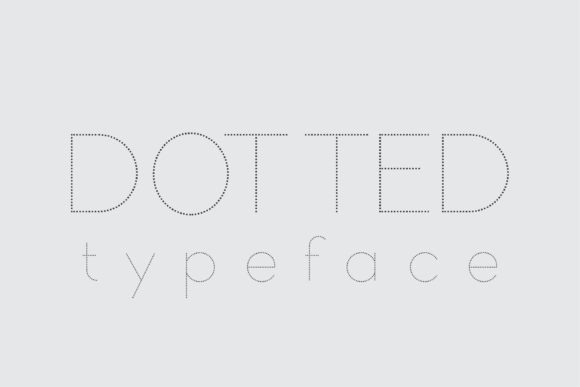
Dotted Font: Elevate Your Designs with a Minimal yet Unique Display Font
In the world of typography, a well-chosen font can make all the difference in the success of a design project. Whether you’re working on a branding campaign, a website, or a marketing material, the right font can elevate your creative ideas and make them stand out from the crowd. This is where Dotted Font comes in – a minimal yet uniquely designed display font that can be matched to an incredibly large set of projects.
What is Dotted Font?
Dotted Font is a modern display font that features a distinctive dotted design. Its unique style is characterized by small dots that form the letters, creating a visually striking and eye-catching effect. The font is designed to be versatile and can be used in a variety of contexts, from headings and titles to logos and branding materials.
Key Features of Dotted Font
- Minimal Design: Dotted Font boasts a clean and minimal design that makes it perfect for modern designs.
- Unique Style: The font’s dotted design sets it apart from other fonts, making it a great choice for designers looking for something distinctive.
- Versatile: Dotted Font can be used in a wide range of projects, from digital designs to print materials.
- Easily Readable: Despite its unique design, Dotted Font is easy to read, making it suitable for use in body text as well as headings.
Creative Ways to Use Dotted Font
Dotted Font is an incredibly versatile font that can be used in a variety of creative ways. Here are some ideas to get you started:
- Branding and Logos: Use Dotted Font to create a unique and memorable logo for your brand.
- Headings and Titles: Add a touch of elegance to your headings and titles with Dotted Font.
- Web Design: Use Dotted Font to create visually striking headings and titles for your website.
- Marketing Materials: Add a professional touch to your marketing materials, such as brochures and flyers, with Dotted Font.
- Social Media Graphics: Use Dotted Font to create eye-catching social media graphics that will help your content stand out.
Tips and Tricks for Using Dotted Font
Here are some tips and tricks to help you get the most out of Dotted Font:
- Experiment with Colors: Dotted Font looks great in a variety of colors, so don’t be afraid to experiment and find the perfect hue for your design.
- Play with Size: Dotted Font can be used at a range of sizes, from small headings to large display text.
- Combine with Other Fonts: Dotted Font pairs well with a variety of other fonts, so try combining it with a sans-serif font for a modern look.
Design Inspiration: How Dotted Font Can Elevate Your Creative Ideas
Dotted Font is a font that can elevate your creative ideas and make them stand out from the crowd. Its unique design and versatility make it perfect for a wide range of design projects. Here are some examples of how Dotted Font can be used to create stunning designs:
- Modern Brochures: Use Dotted Font to create modern and eye-catching brochures that will help your business stand out.
- Elegant Websites: Add a touch of elegance to your website with Dotted Font, perfect for creating a professional online presence.
- Creative Posters: Use Dotted Font to create visually striking posters that will grab attention and communicate your message effectively.
Technical Details of Dotted Font
- Font Type: Dotted Font is a display font.
- Characters: Dotted Font includes a wide range of characters, including uppercase and lowercase letters, numbers, and punctuation marks.
Dotted Font is a minimal yet uniquely designed display font that can elevate your creative ideas and make them stand out from the crowd. Its versatility, readability, and distinctive design make it perfect for a wide range of design projects, from branding and logos to headings and titles. With its technical details and license information, Dotted Font is a great choice for designers looking for a high-quality font that will help them create stunning designs.